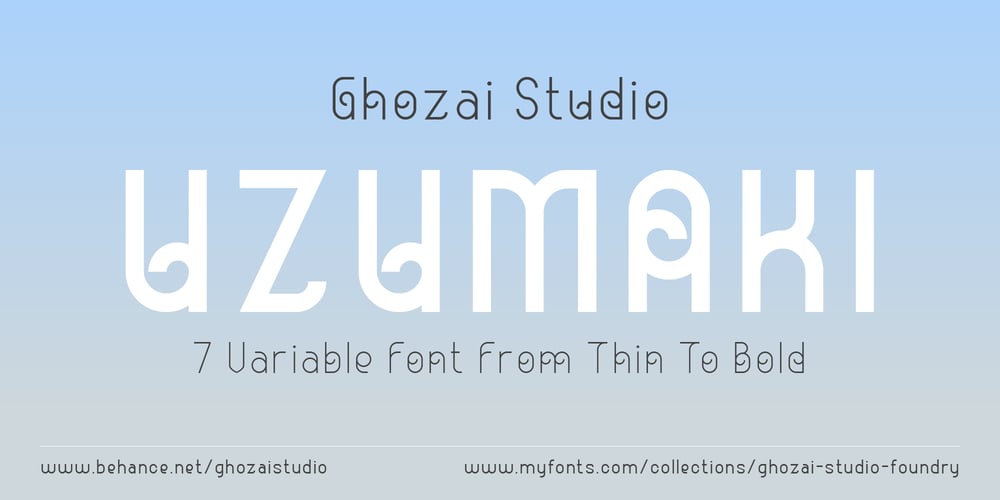
Uzumaki Font Family was designed by Manzur Ghozaali and published by Ghozai Studio. Uzumaki contains 7 styles and family package options. The Uzumaki font is an experimental typeface inspired by Japanese manga, particularly “Naruto” and “Uzumaki” by Junji Ito, as well as a technique used in Jujutsu Kaisen. The name Uzumaki translates to whirlpool or spiral. This font is available in seven styles, ranging from thin to bold. Featuring stylistic alternates, Uzumaki provides two distinct styles within one font, offering designers greater flexibility and creativity for a unique, customized look in their typography. The Uzumaki font is ideal for various applications, including branding, posters, magazines, restaurant or cafe menus, logos, and more.